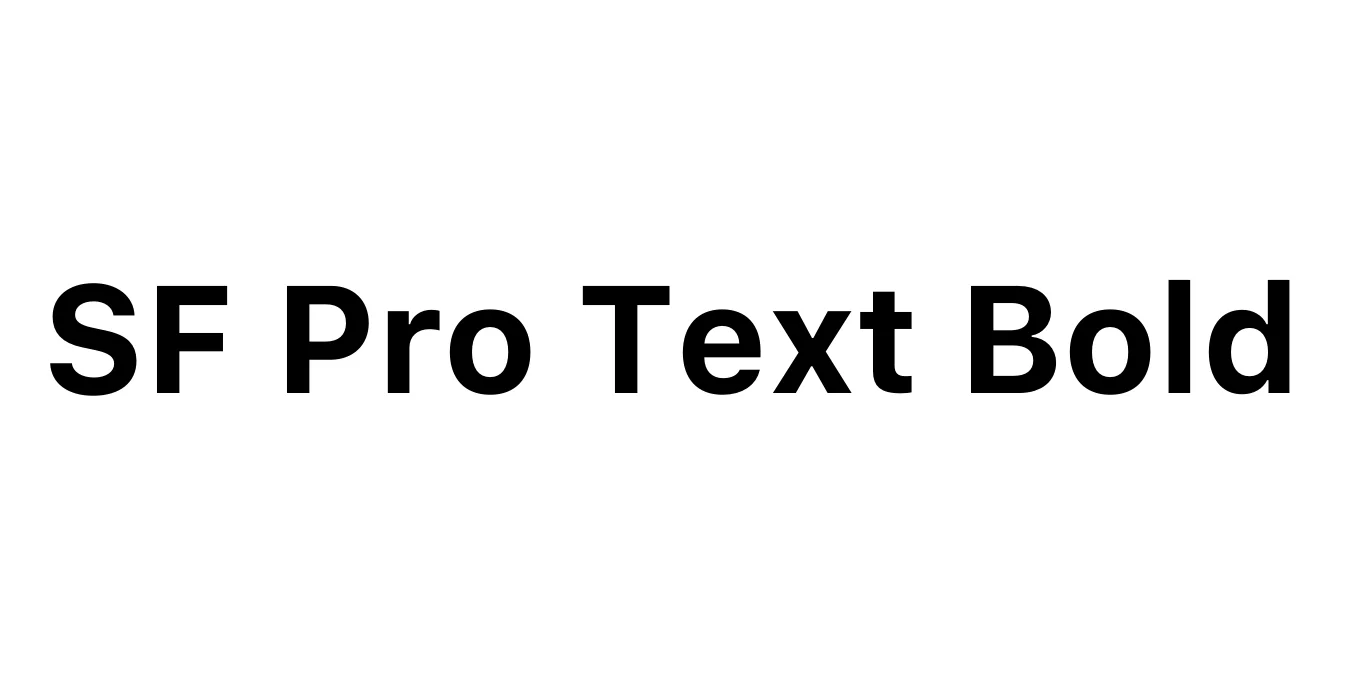
SF Pro Text Bold
Designed by Apple Inc.
SF Pro Text Bold is a high-performance sans-serif typeface designed by Apple Inc. to provide a consistent and highly legible typographic voice across their entire ecosystem. Specifically optimized for small point sizes, the 'Text' variant features slightly more open letter spacing and larger apertures than the 'Display' version, ensuring that text remains crisp and readable on everything from mobile screens to high-resolution desktop monitors.
The Bold weight is a critical component of modern UI design, used extensively for headers, buttons, and emphasized labels within iOS, macOS, and watchOS. By replacing Helvetica Neue as the system font, SF Pro was engineered to adapt dynamically to different screen sizes and resolutions, making it one of the most versatile and functional Grotesque fonts in the digital era.
SF Pro Text Bold Best Uses
The primary choice for designing crisp and accessible iOS or iPadOS applications.
Excellent for clean, modern websites that require a professional and tech-forward appearance.
Perfect for tech startups and companies looking to emulate a high-end, minimalist aesthetic.
Ideal for data-heavy interfaces where legibility at various weights is crucial.